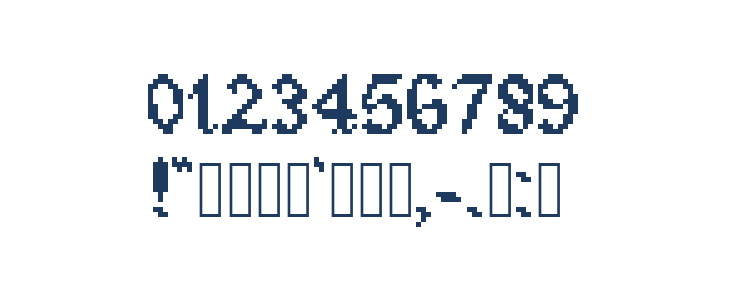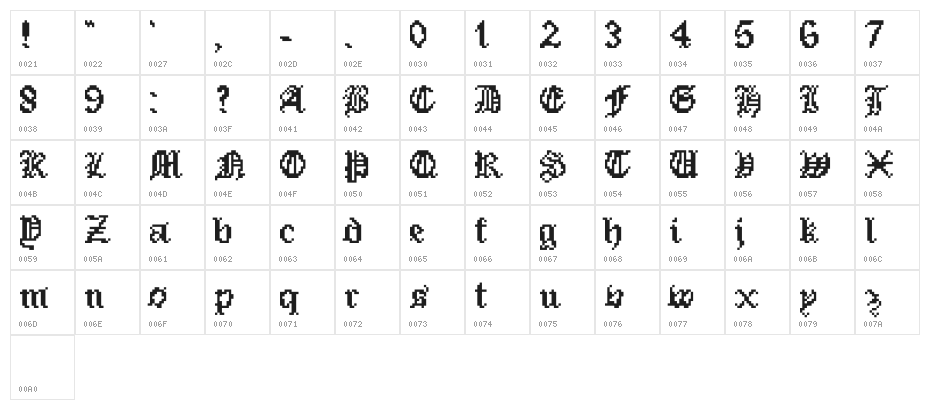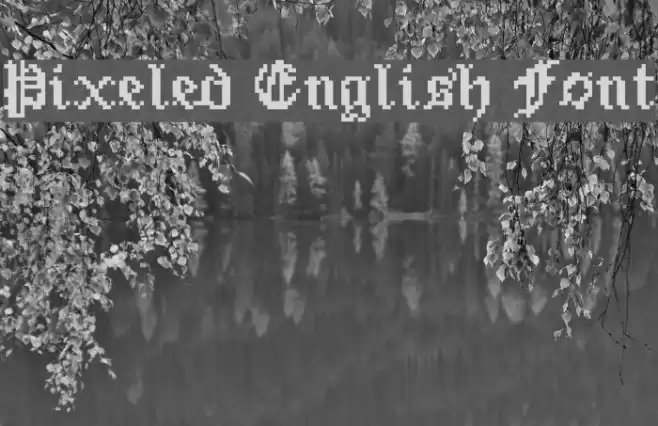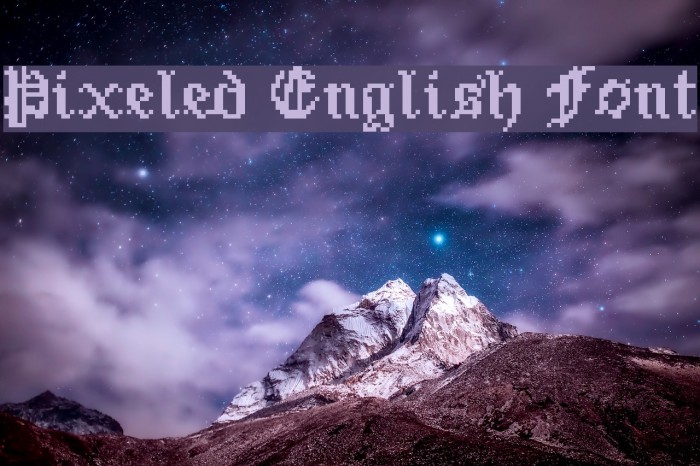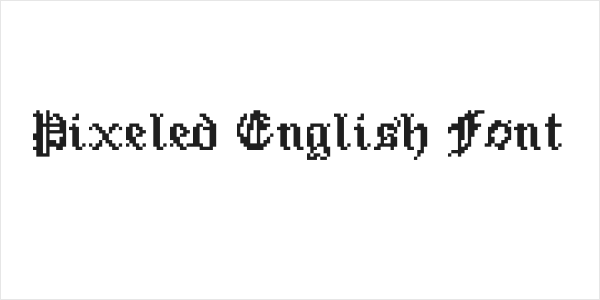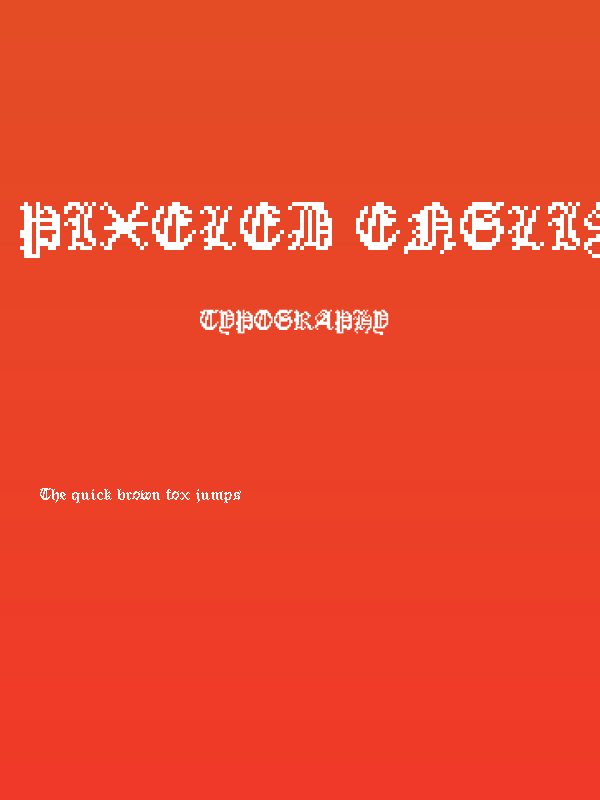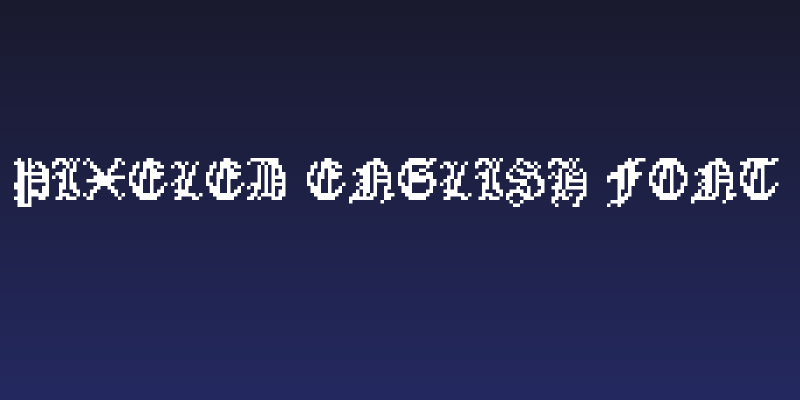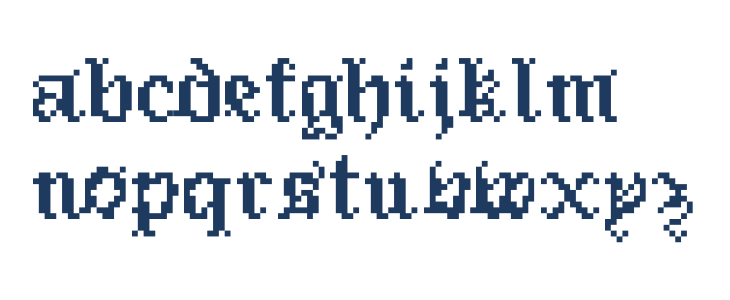
Pixeled English Font Font
Pixeled English Font Description
This font features a pixelated, Gothic-inspired design that combines the intricate details of traditional blackletter styles with a modern, digital twist. The uppercase letters are bold and ornate, with sharp angles and decorative serifs that give them a medieval feel. The lowercase letters maintain the same pixelated aesthetic, offering a cohesive look across the alphabet. Numbers and special characters are also included, each designed with the same attention to detail and pixelated style. This font is ideal for projects that require a blend of historical elegance and digital modernity.
| Proposed Projects | Ideal for video game design, retro-themed posters, digital art projects, and branding that requires a unique, historical yet modern look. |